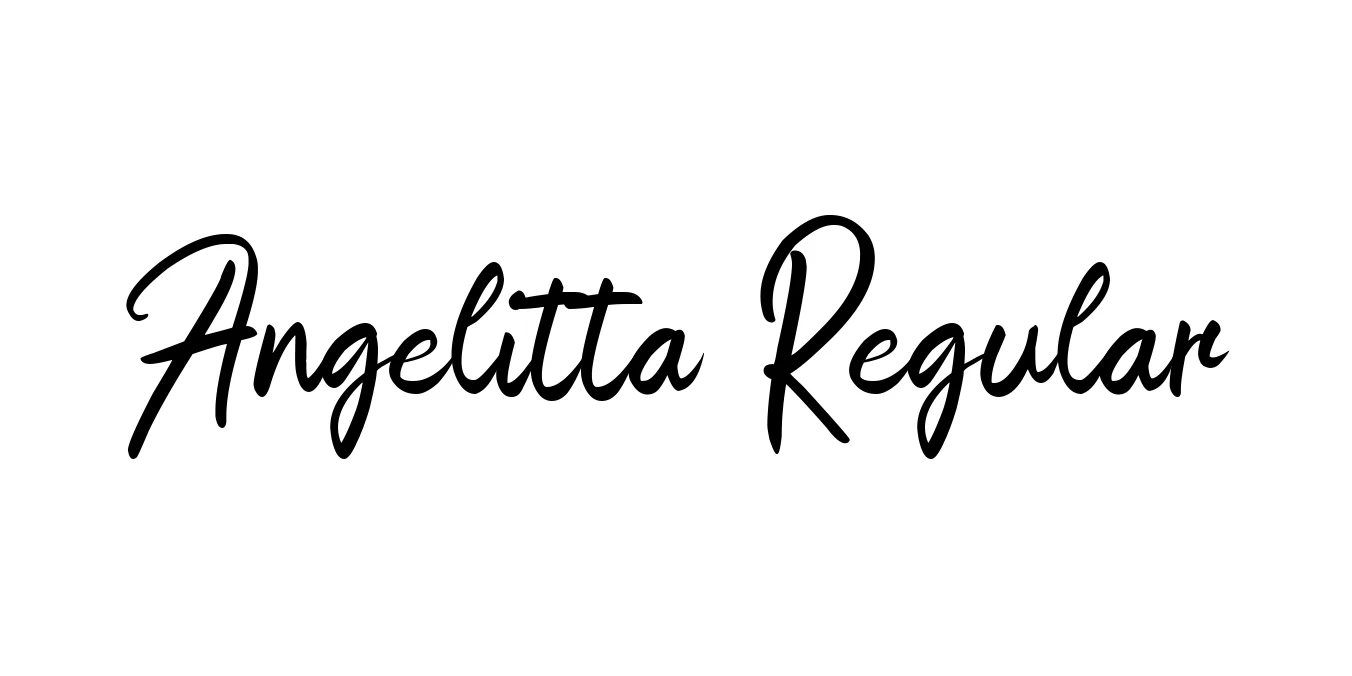
Angelitta Regular
Angelitta Regular is an exquisite and sophisticated script font that captures the essence of modern calligraphy. Characterized by its flowing lines and delicate swashes, this font was meticulously designed to provide a natural, hand-drawn feel to digital typography. The balance between its thick and thin strokes allows for high legibility while maintaining a decorative flair that is perfect for high-end design projects requiring a touch of elegance.
Throughout its development, Angelitta Regular has become a favorite among designers for its versatility in both print and digital media. It features a comprehensive set of glyphs and ligatures that enhance its rhythmic flow, making it ideal for everything from luxury branding to intimate event invitations. Its timeless appeal ensures that it remains a go-to choice for projects that aim to convey femininity, grace, and professional artistry.
Angelitta Regular Best Uses
Perfect for creating romantic invitations, place cards, and save-the-dates.
Ideal for luxury logos, fashion labels, and boutique business cards.
Adds a sophisticated touch to magazine headers, book covers, and quotes.
Great for crafting aesthetic Instagram posts and elegant promotional banners.